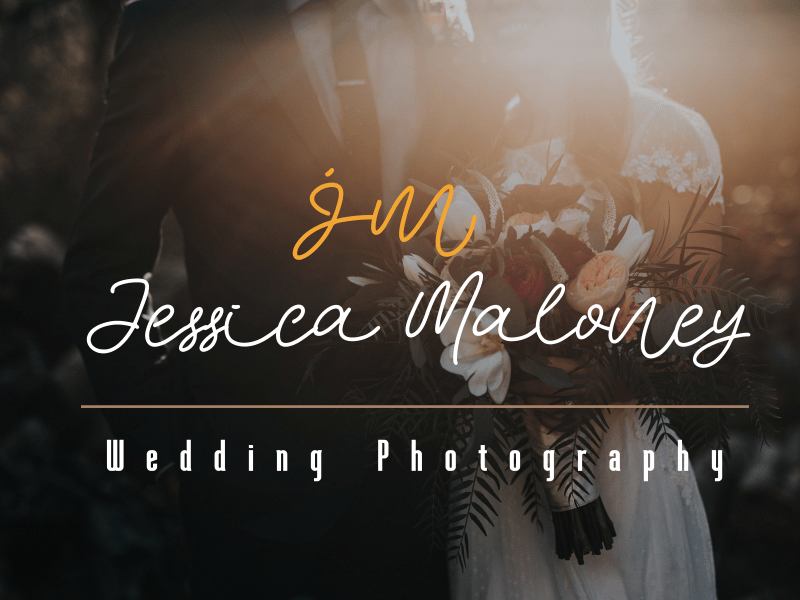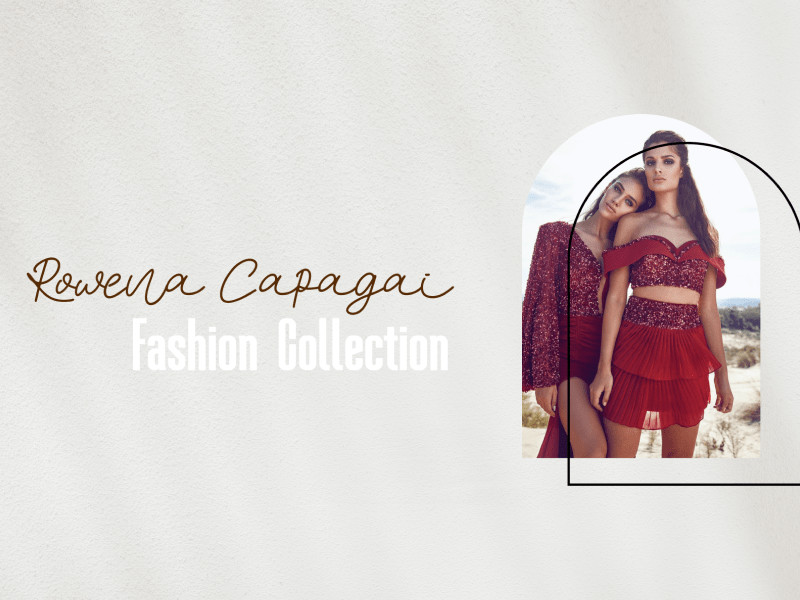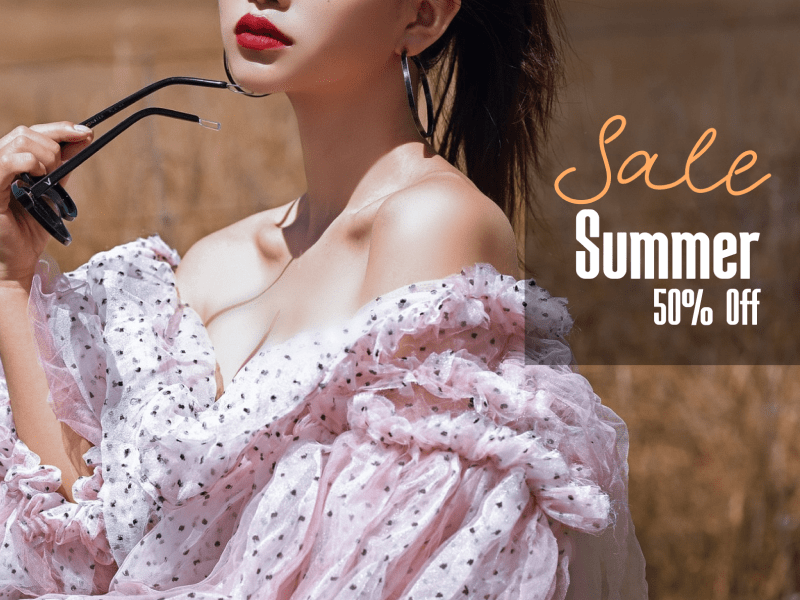
Killara Rowanda Font Duo
The font is collaboration between a new modern script font and a san-serif style. It comes with decorative characters, and an irregular baseline. Trendy and feminine style. It looks lovely on wedding invitations, thank you cards, quotes, greeting cards, logos, business cards and more.
● Full upper + lowercase characters
● Numbers + punctuation
● Ligatures
● Multilingual Support